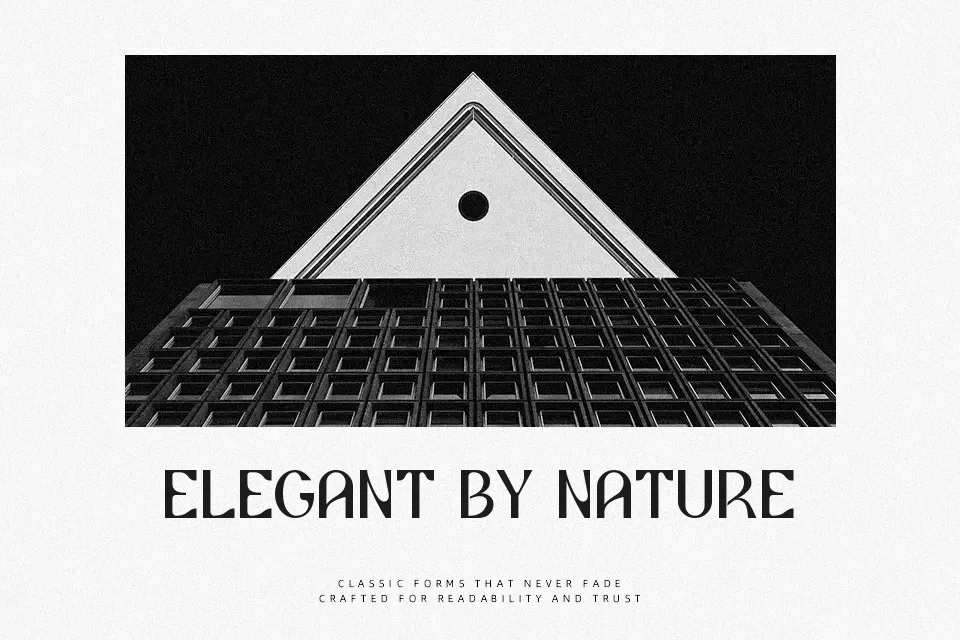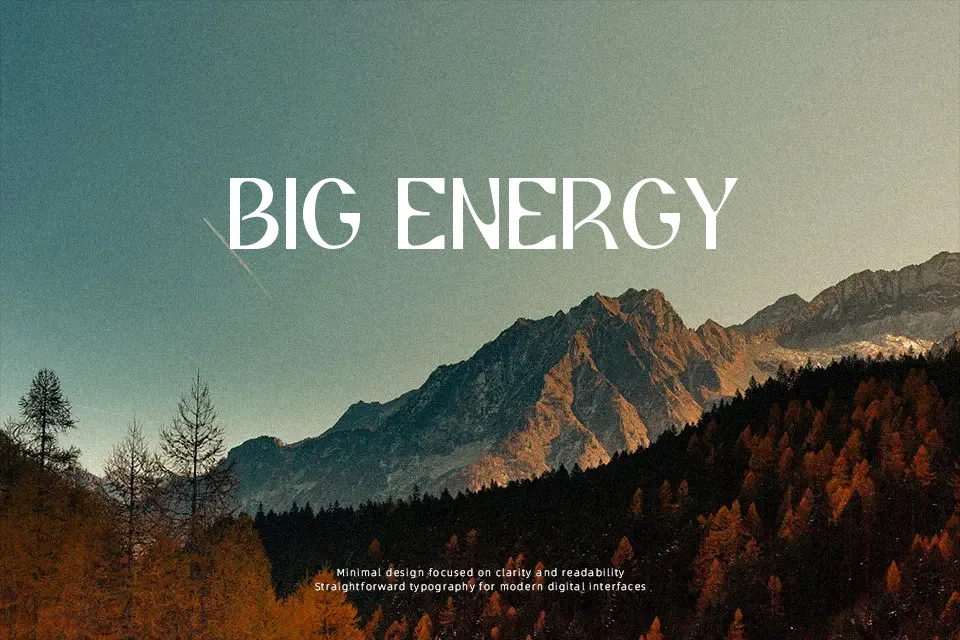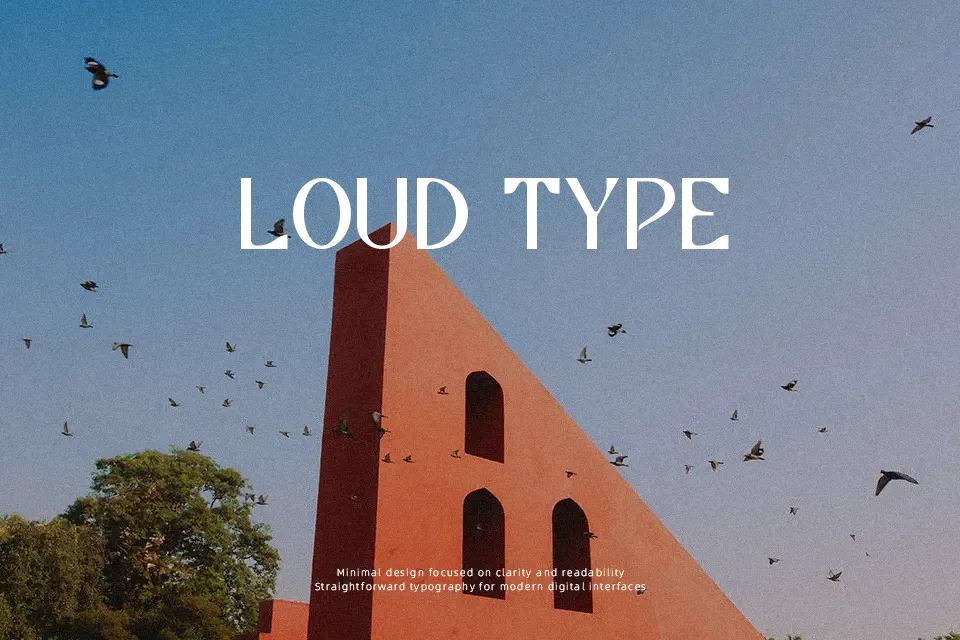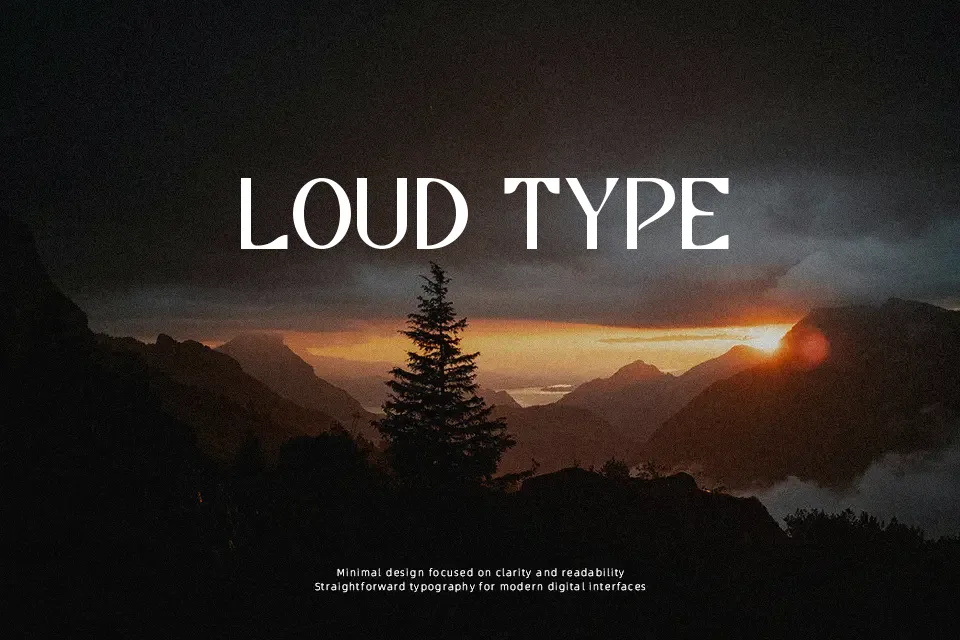
Alviona Font
Designed by UI Creative
Starting with its letterforms, Alviona leans into slim verticals, tight curves, and high contrast between thick stems and fine hairlines, creating a distinctly polished serif look. The spacing feels tuned for short words and titles, giving logos, magazine mastheads, and packaging a sleek, editorial character. Its mood sits between fashionable and classic, so it works especially well for beauty, fashion, and wedding branding where you want elegance without stiffness. However, the pronounced contrast and decorative details can reduce legibility in long paragraphs or very small sizes, so it is better kept for headlines and key display lines rather than dense body copy.
fashion brand logos
wedding invitation headings
magazine covers and mastheads
premium product packaging
small-size UI labels
technical documentation
data-heavy corporate reports
Perfect for branding, headline, and logo, with a classic and display style.